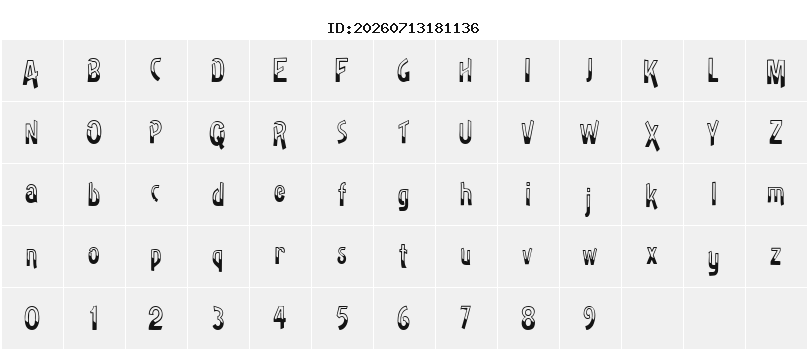
BadhHabit71 ttcon Preview
• Font Name: BadhHabit71 ttcon
• Font ID: Altsys Metamorphosis:BadhHabit71 Regular
• Full Font Name: BadhHabit71 Regular ttcon
• Version: Altsys Metamorphosis:10/27/94
• PostScript Name: BadhHabit71-Condensed
About BadhHabit71 ttcon.ttf
BadhHabit71 ttcon.ttf is a modern, elegant sans-serif font designed for ultimate readability and visual harmony. Perfect for branding, headlines, web design, and print materials.